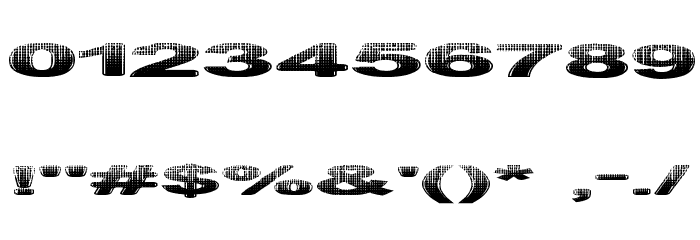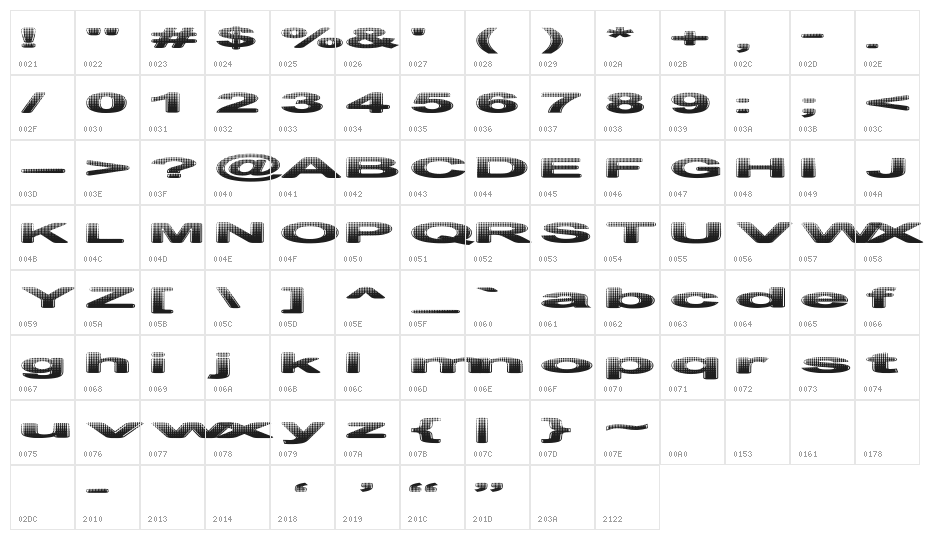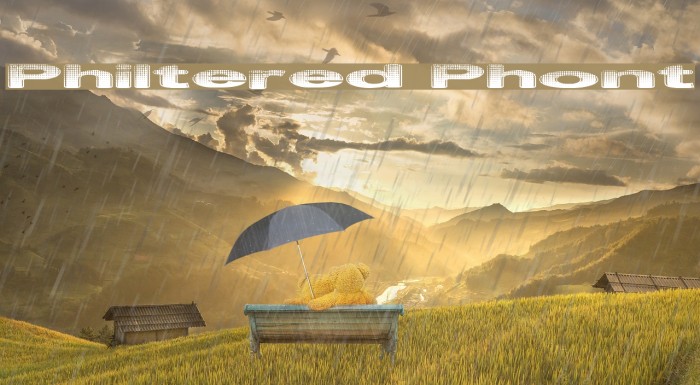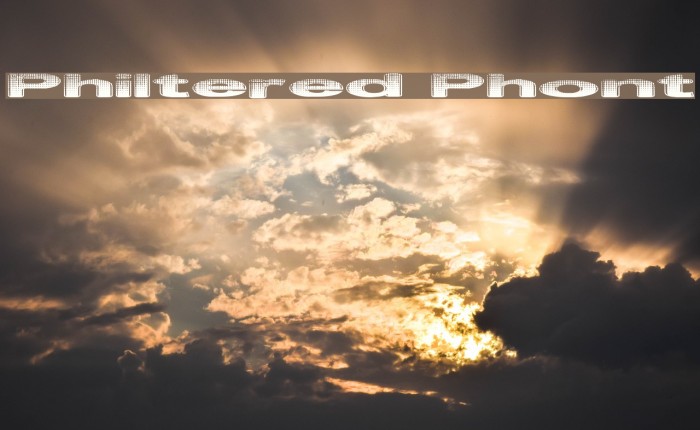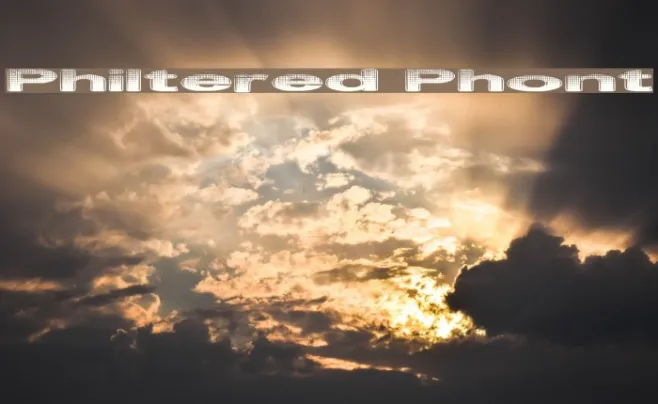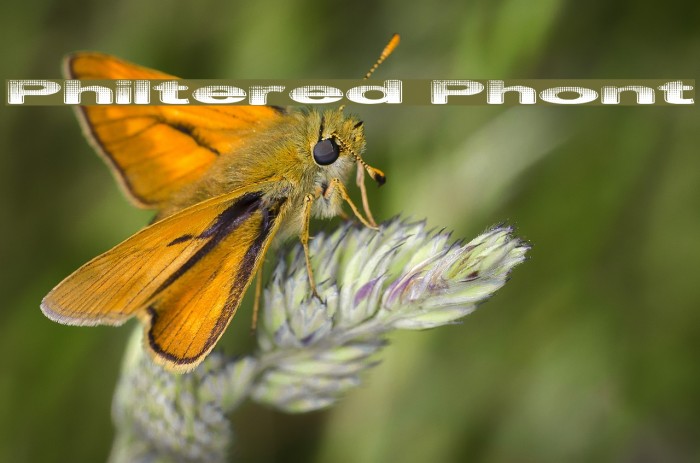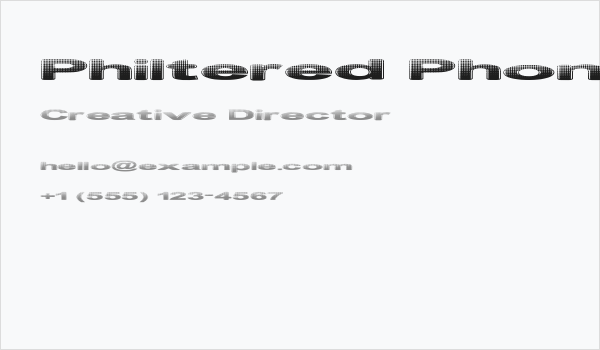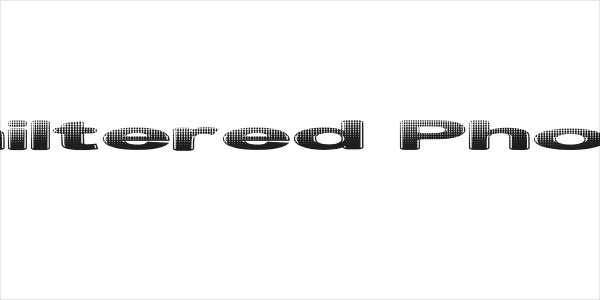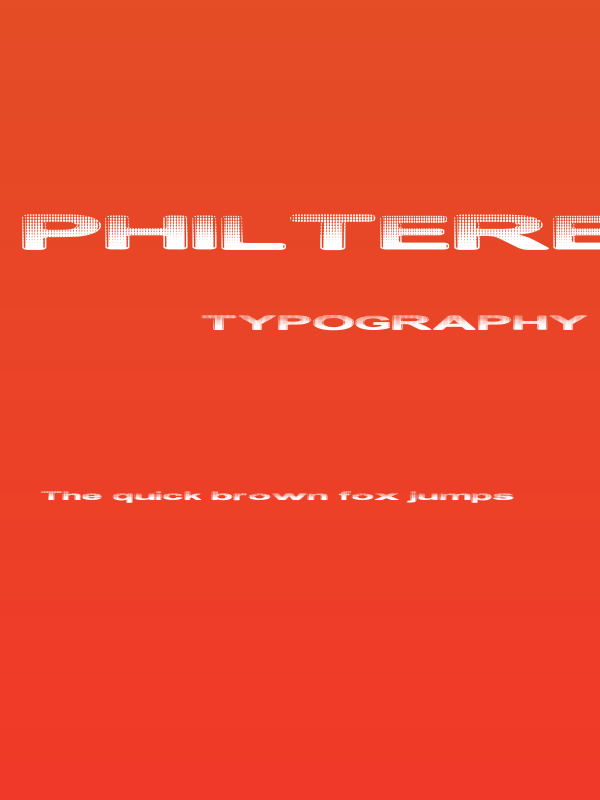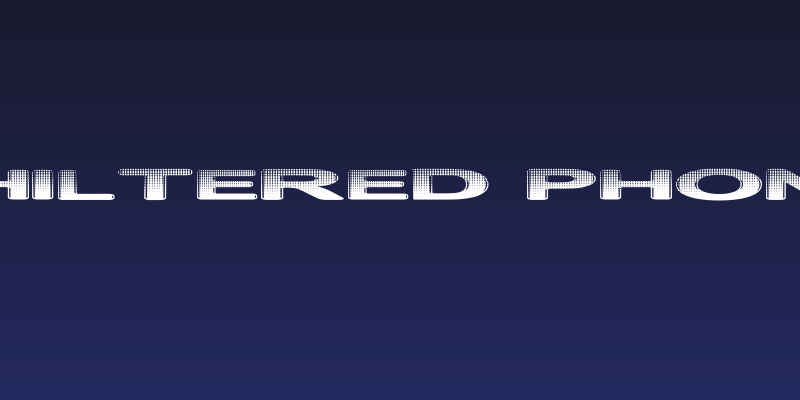
Philtered Phont Font
Philtered Phont Description
This font features a bold, decorative style with a unique halftone pattern that gives it a textured, almost three-dimensional appearance. The characters are wide and have a strong presence, making them ideal for attention-grabbing designs. The uppercase and lowercase letters maintain a consistent style, with rounded edges and a modern aesthetic. The numbers and special characters follow the same design principles, ensuring uniformity across all glyphs. This font's distinctive look is perfect for creative projects that require a bold statement.
| Proposed Projects | Ideal for posters, album covers, branding, and any project needing a bold, artistic touch. |